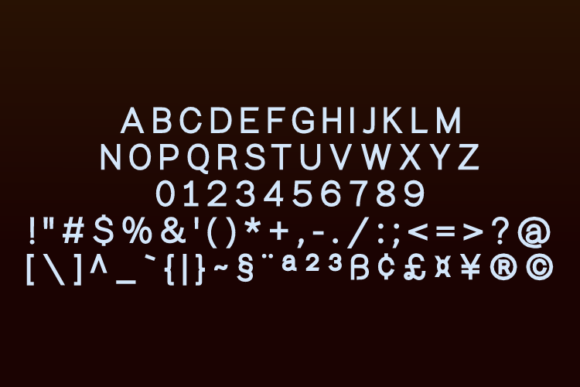
Introduction to Nextart Extra Bold Font
Have you ever stumbled upon a design that left you speechless, yet inspired? For many designers, this moment is a reminder that the right font can elevate a project from ordinary to extraordinary. For those who crave a timeless, romantic, and minimalistic aesthetic, we’re excited to introduce the Nextart Extra Bold Font – a stunning all caps sans serif font that’s sure to captivate.
Perfect for magazine layouts, invitations, headers, or even large-scale artwork, the Nextart Extra Bold Font is a valuable design resource for creatives. Its high-quality design and versatility make it an ideal choice for any project, from a simple social media graphic to a complex creative project. With its transparent background, this font is ready to be layered and manipulated to achieve the desired look.
Key Features of Nextart Extra Bold Font
- High-quality design resource ideal for creative projects requiring a bold, eye-catching font.
- Features a transparent background, making it easy to layer over other design elements without visual clutter.
- Nextart Extra Bold Font is designed to provide maximum readability, making it perfect for headings, titles, and other prominent text elements.
- Includes a wide range of glyphs and characters, making it suitable for use in various languages and cultural contexts.
- Available in a single weight (Extra Bold), allowing designers to easily achieve a consistent visual style throughout their project.
Honest Review: Nextart Extra Bold Font
I recently had the opportunity to work with the Nextart Extra Bold Font for a creative project, and I’m excited to share my honest review. As a designer, I’m always on the lookout for high-quality design resources that can elevate my work.
The Nextart Extra Bold Font is a free download that offers a clean and modern aesthetic, perfect for a variety of creative projects. One of the standout features is its ability to work well on a transparent background, allowing for seamless integration into any design.
- ✨ Works well on transparent backgrounds
However, I did encounter a few limitations with the font. Specifically:
- ⚠️ Limited font weights and styles
- ⚠️ Not ideal for large blocks of text, as it can become overwhelming
Overall, I’m impressed with the Nextart Extra Bold Font and would recommend it to designers looking for a high-quality, modern font for their creative projects. While it may not be perfect, its strengths outweigh its limitations, making it a valuable addition to any design resource library.
Tips for Getting the Most Out of Nextart Extra Bold Font
For a high-quality look, use the Nextart Extra Bold Font on a transparent background. This will help the font stand out and add a professional touch to your creative project.
The Nextart Extra Bold Font is perfect for a wide range of creative projects, including logos, brochures, and social media graphics. It’s also a great choice for presentations and reports, where a clear and bold font is essential.